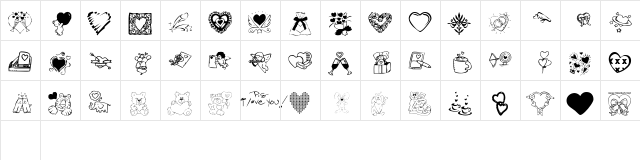
KR Valentine Dings 2002 Regular
Design Context for KR Valentine Dings 2002
KR Valentine Dings 2002 is a composed and adaptable typeface that performs quietly and consistently across a wide range of design contexts.
Pro Tip: Use KR Valentine Dings 2002 in both headline and body roles to test its range before committing to a single application.